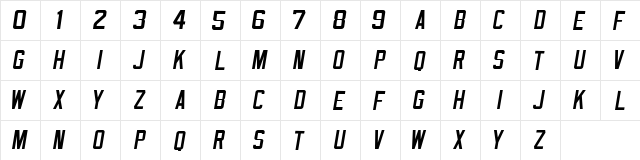
NHL Carolina Regular Font Preview
NHL Carolina Regular
Design Context for NHL Carolina Typeface
NHL Carolina offers clean, dependable letterforms without strong stylistic allegiance, making it a practical choice for designers who need flexibility.
Pro Tip: Pair NHL Carolina with a font of contrasting weight or personality to build a more expressive typographic hierarchy.